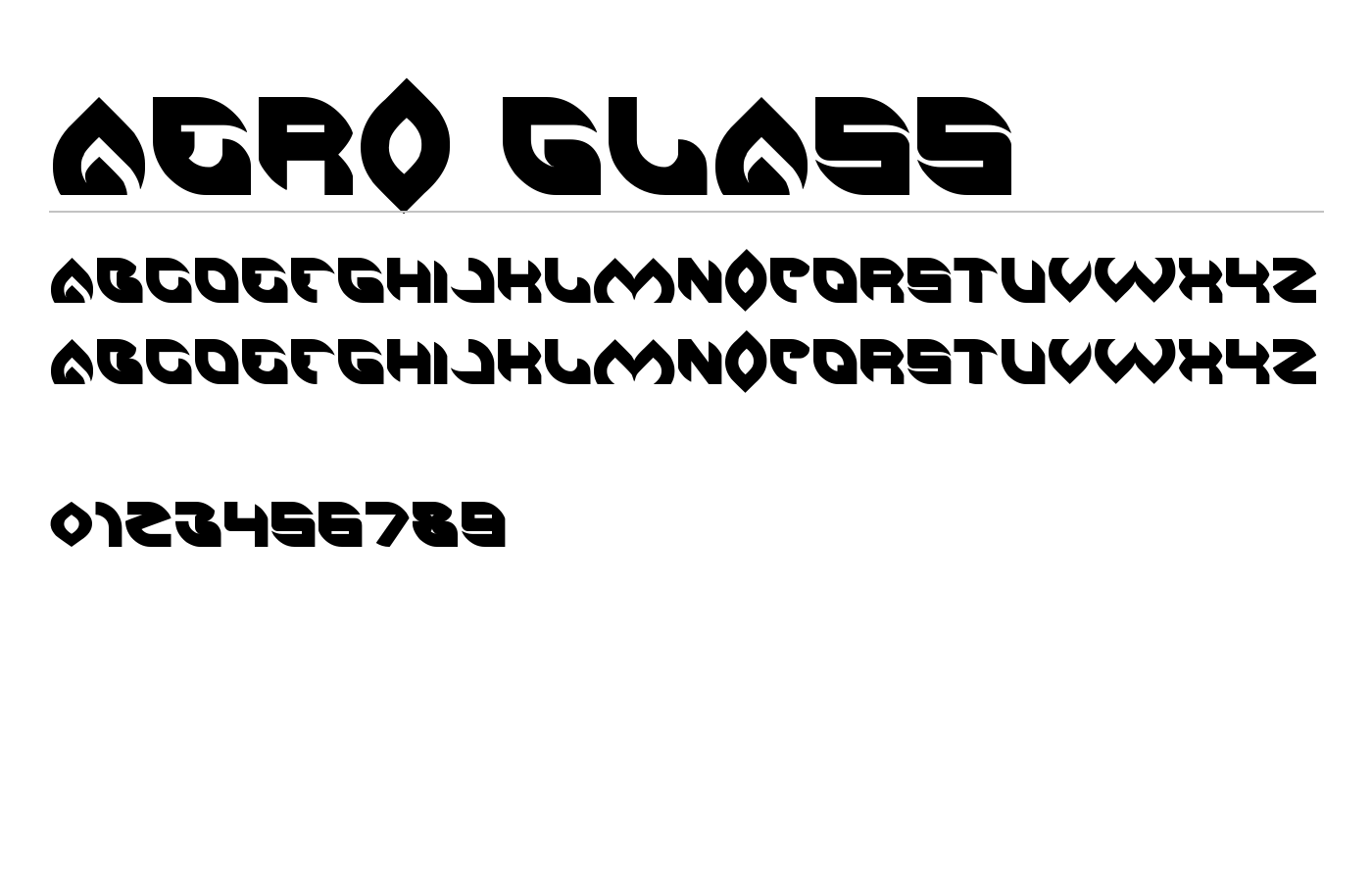
AERO GLASS is a bold, geometric sans serif font with a futuristic and stylized design, featuring thick, angular letterforms and unique cut-out details that create a dynamic, tech-inspired look. Its strong presence and distinctive shapes make it ideal for eye-catching headlines, branding, and projects seeking a modern, innovative vibe. This font works best in logos, posters, and digital media where a bold, cutting-edge statement is desired.
AERO GLASS Font
About AERO GLASS Font
| Font family | AERO GLASS Font |